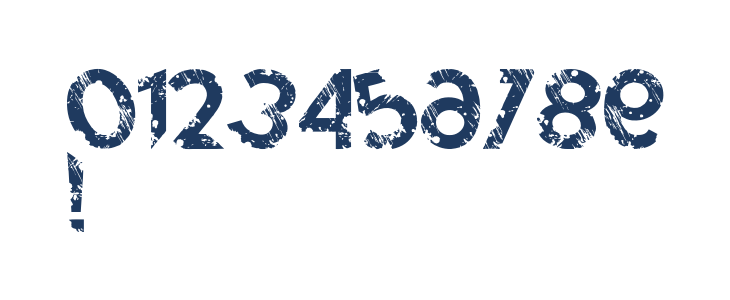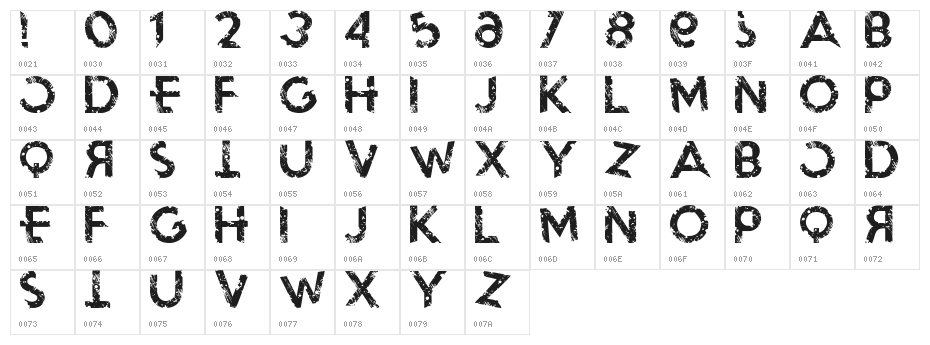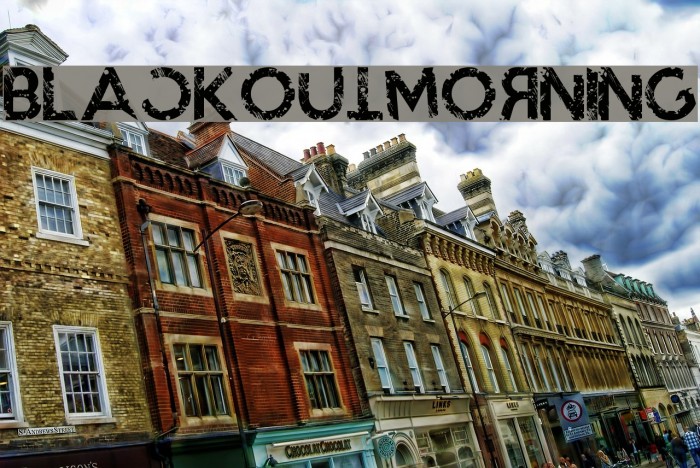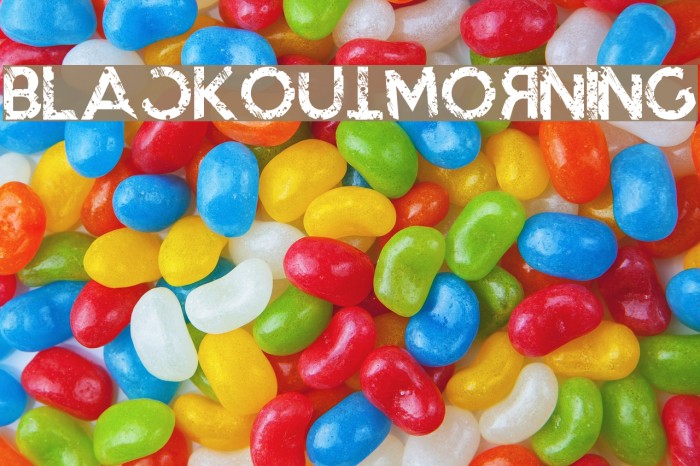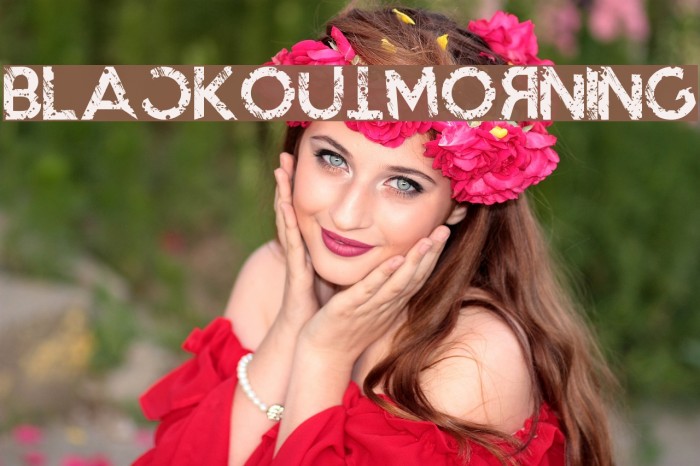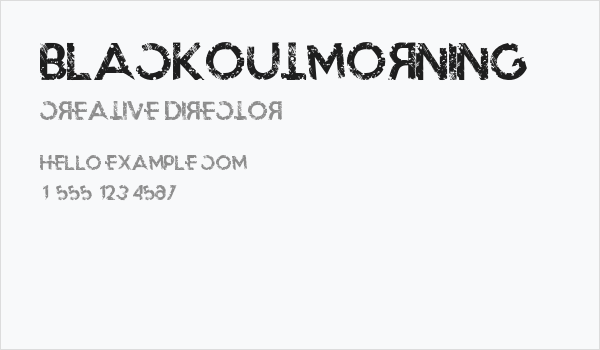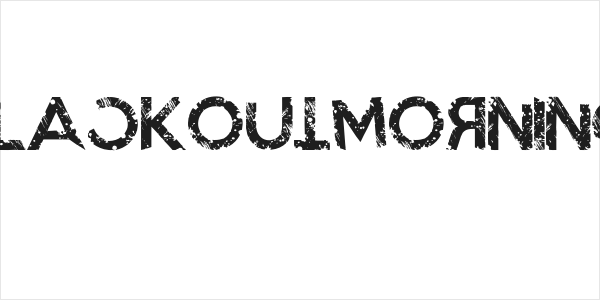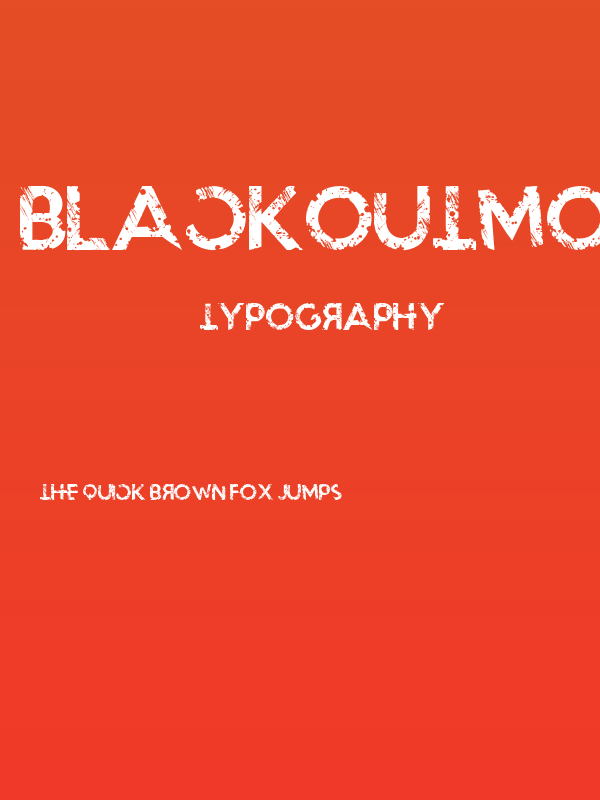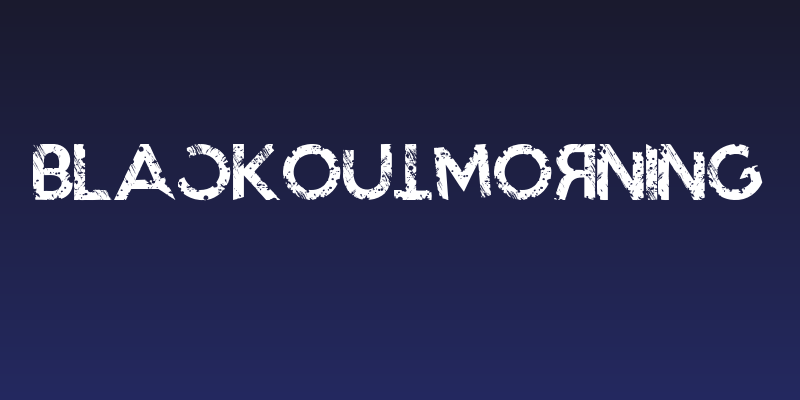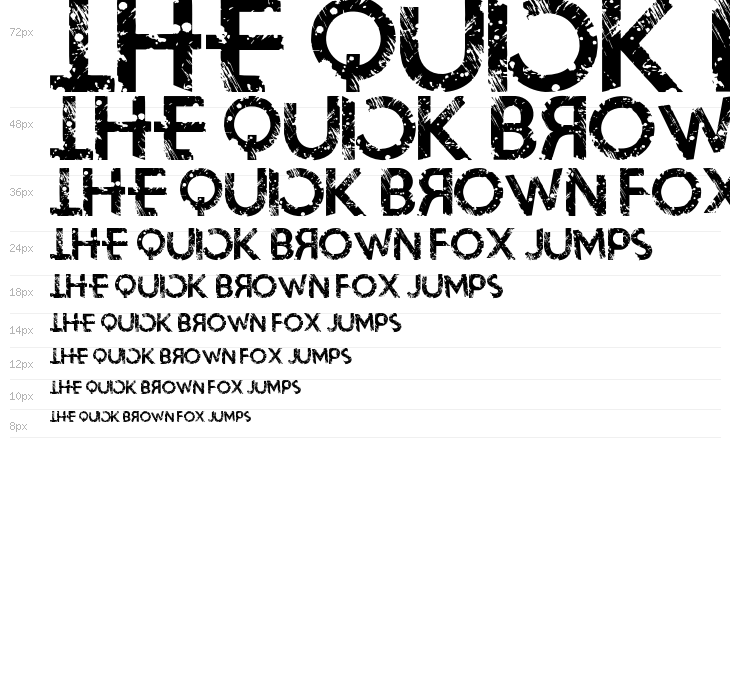
BlackoutMorning Font
BlackoutMorning Description
This font exhibits a bold and distressed style, characterized by its rough, textured appearance that mimics a worn or eroded surface. The letters are uppercase and maintain a consistent height, with each character featuring unique, irregular patterns that give it a grunge aesthetic. The numbers and special characters follow the same design principles, ensuring a cohesive look across all elements. This font's rugged and edgy style makes it ideal for projects that require a strong visual impact.
Overall StyleGrunge, Urban, Edgy
Proposed ProjectsIdeal for music album covers, posters, urban-themed designs, and branding that requires a gritty, impactful look.